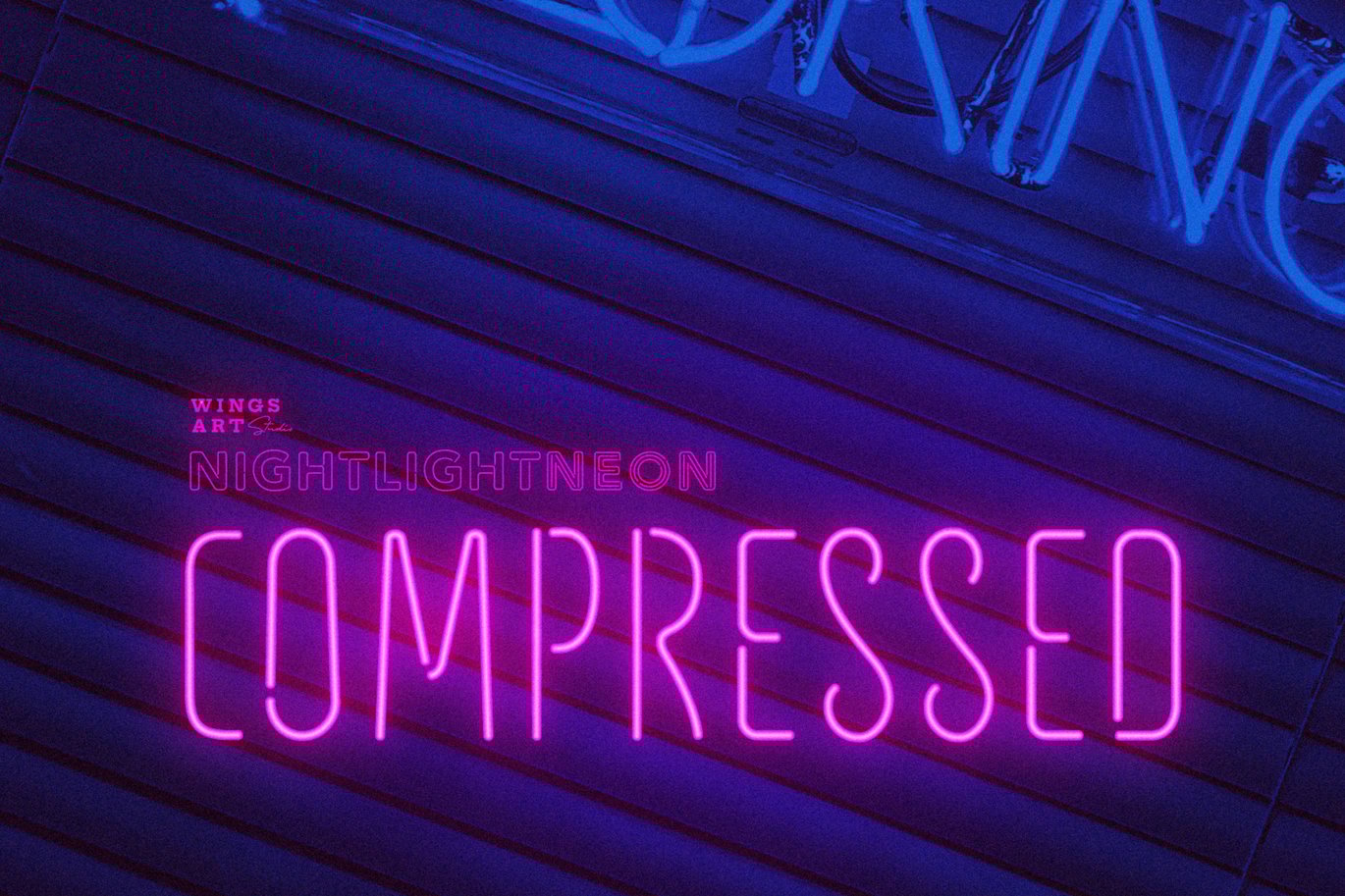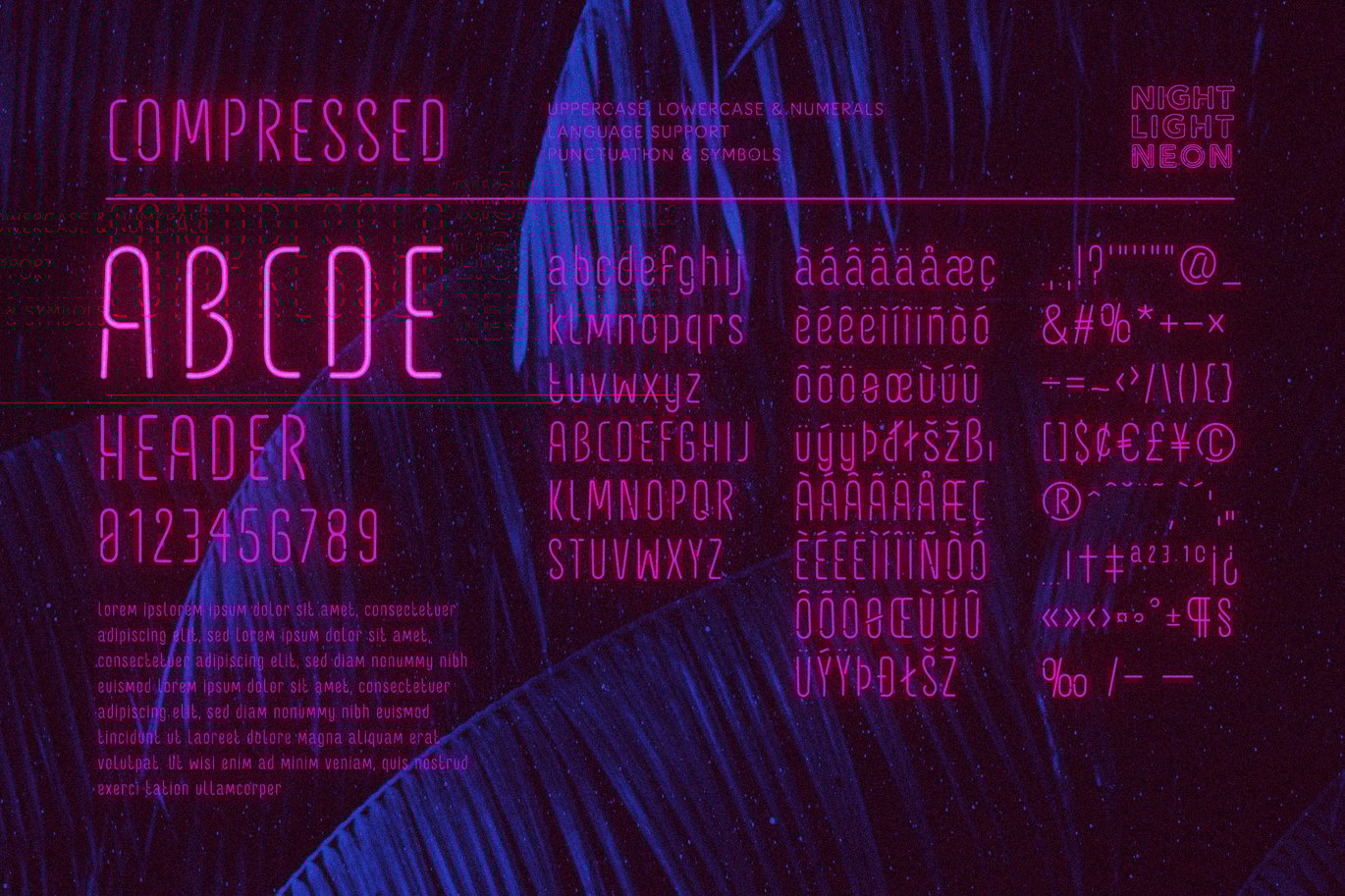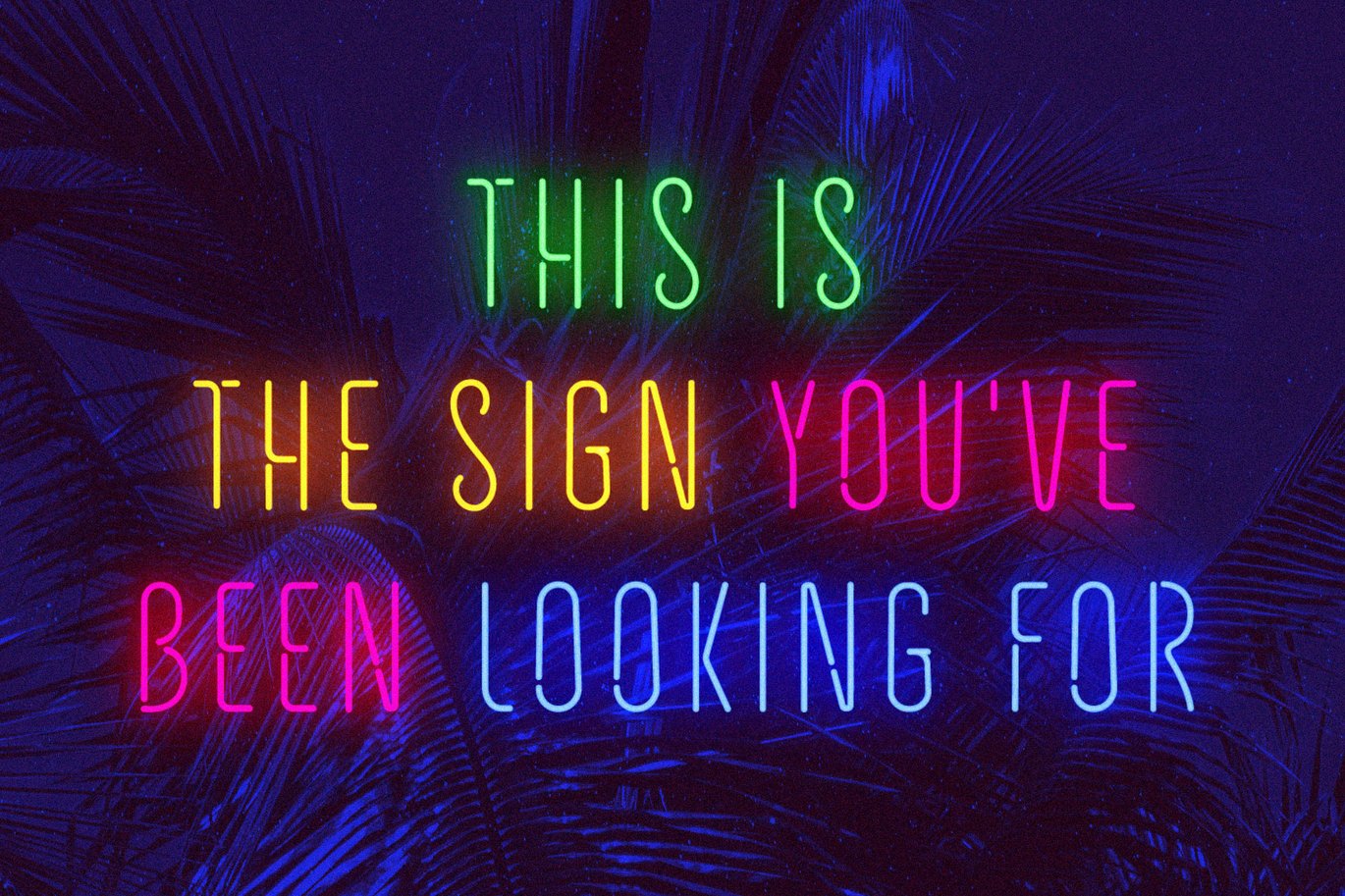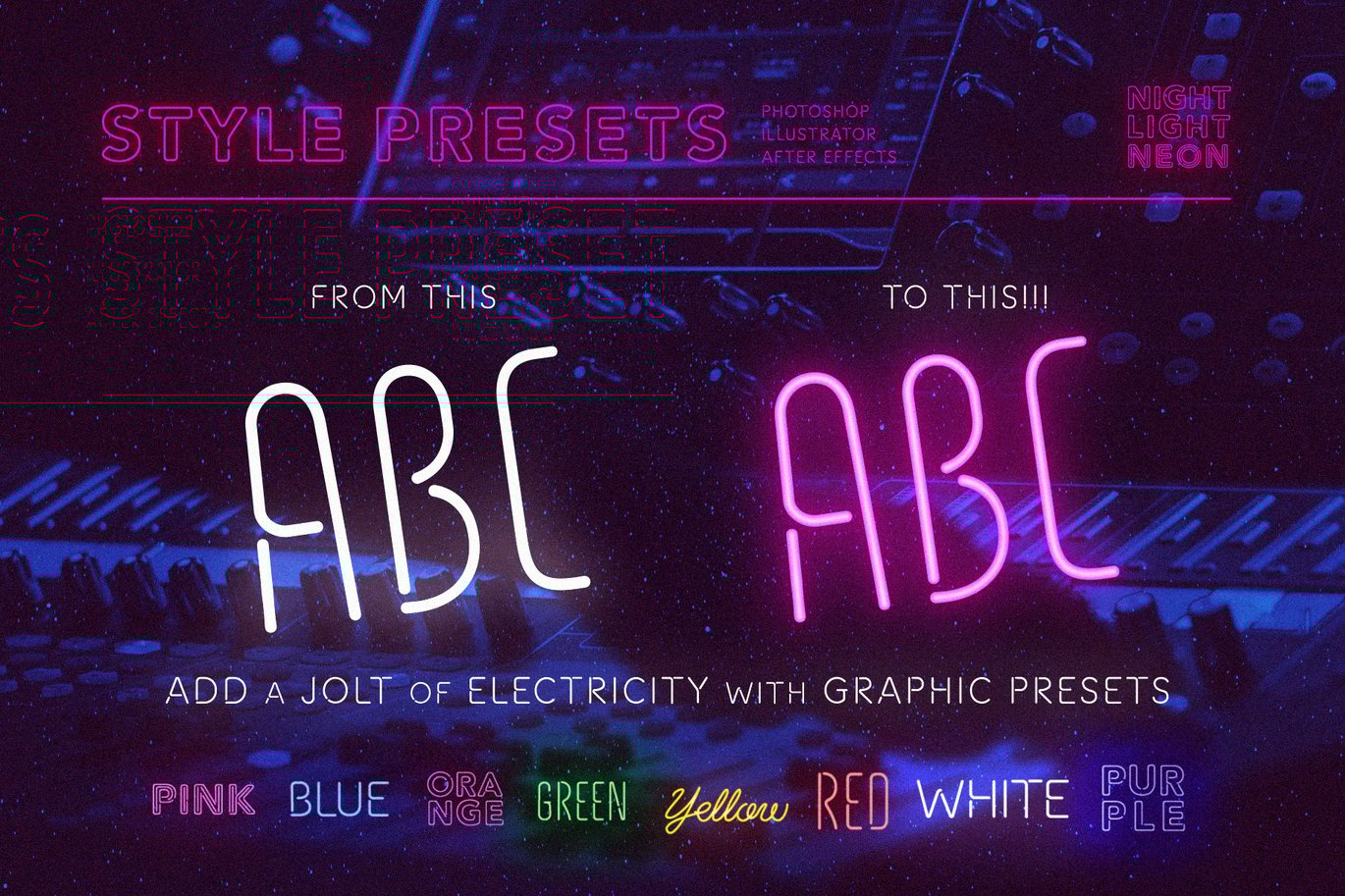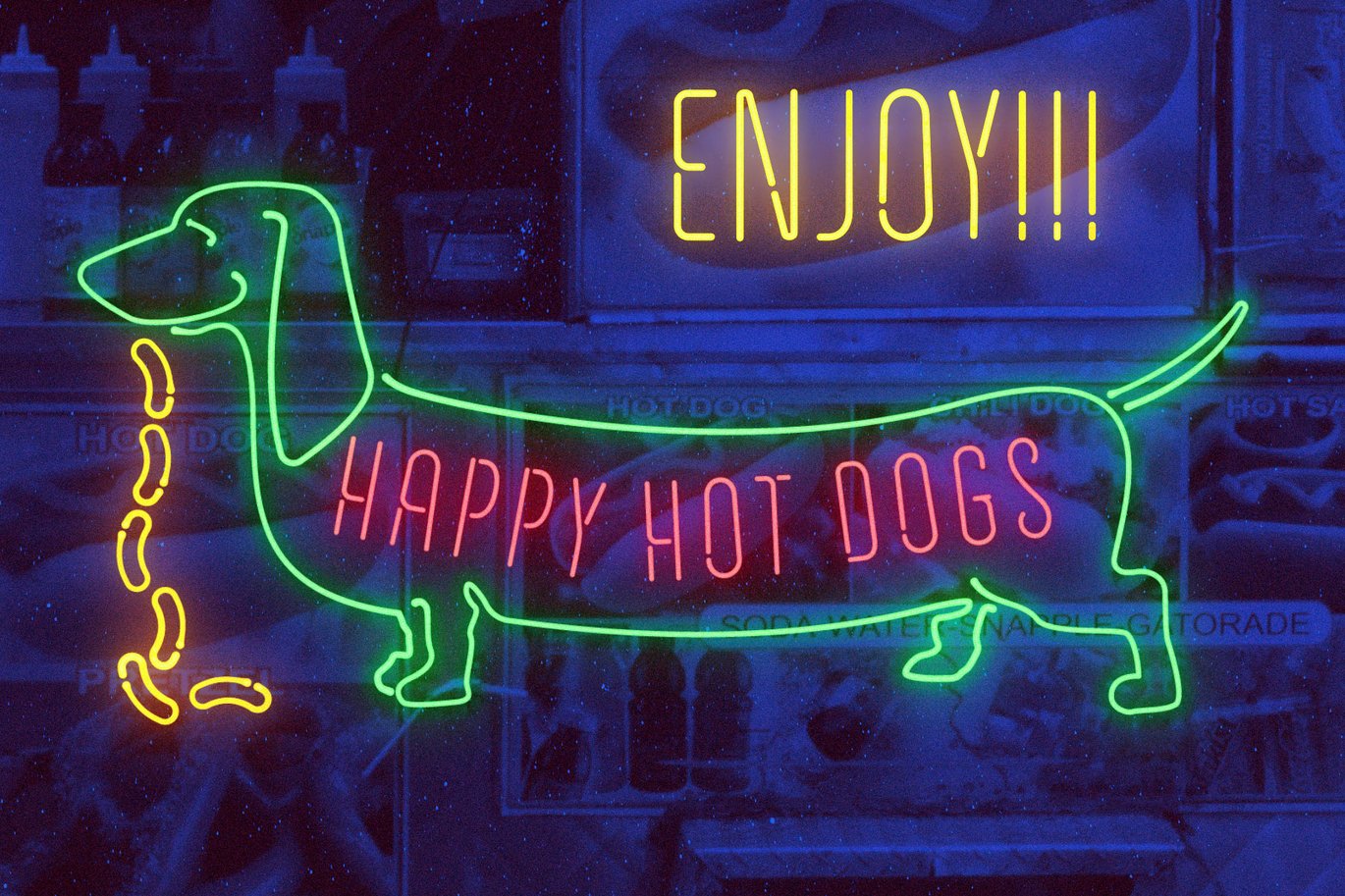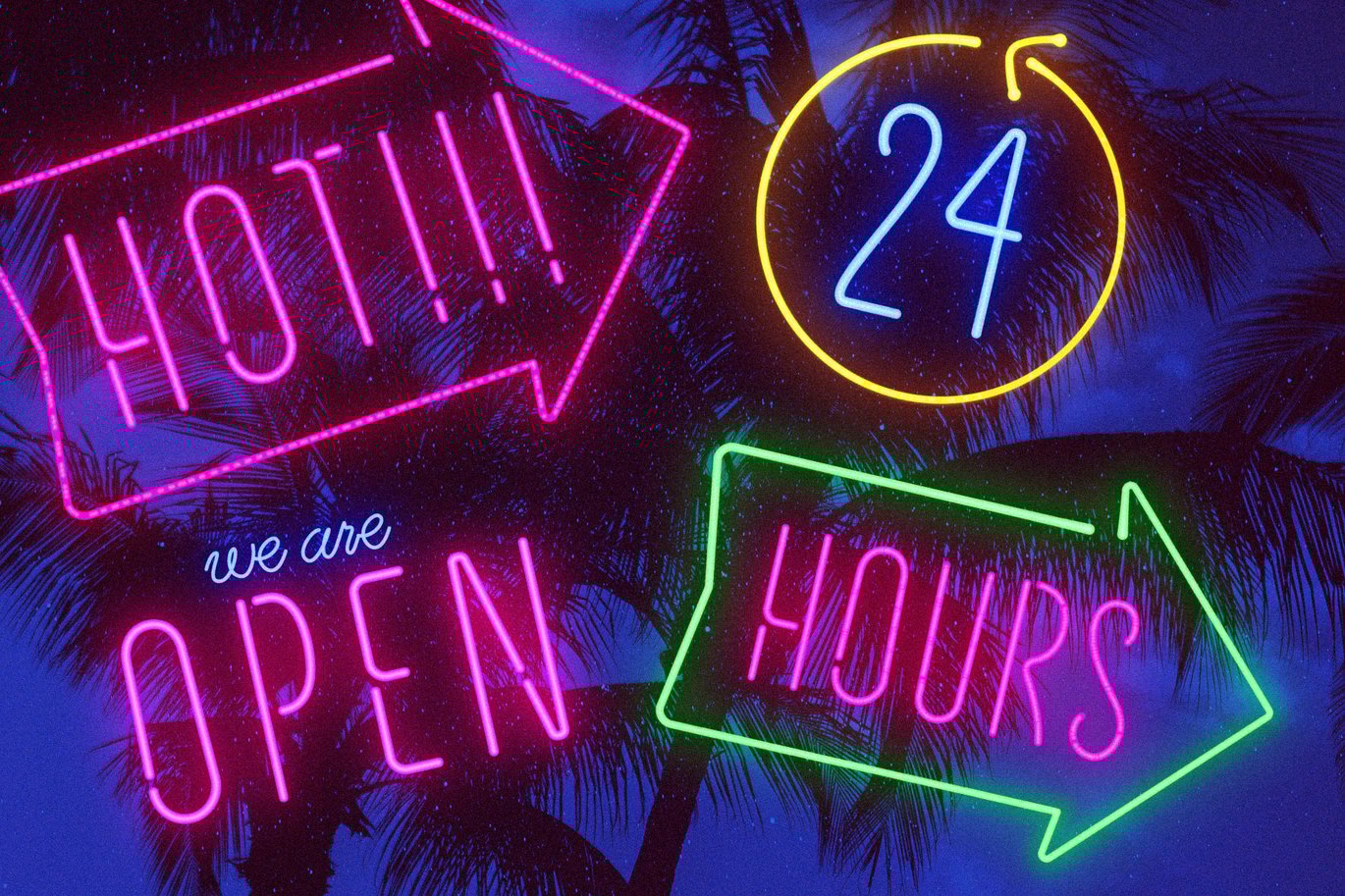
Retro Neon Font – Compressed Style
NIGHT LIGHT NEON – COMPRESSED FONT STYLE
A specially crafted neon inspired font giving designers the power to replicate traditionally hand-made lettering from the comfort of their computer.
ACHIEVE AN AUTHENTIC NEON LOOK
This Compressed style font works great as a headline for music promotion, film titles, Youtube tutorials and gig posters, and when combined with the included graphic presets* achieves a truly realistic neon look.
Night Light Neon – Compressed Font – Uppercase and lowercase letters, numbers, punctuation and language support.